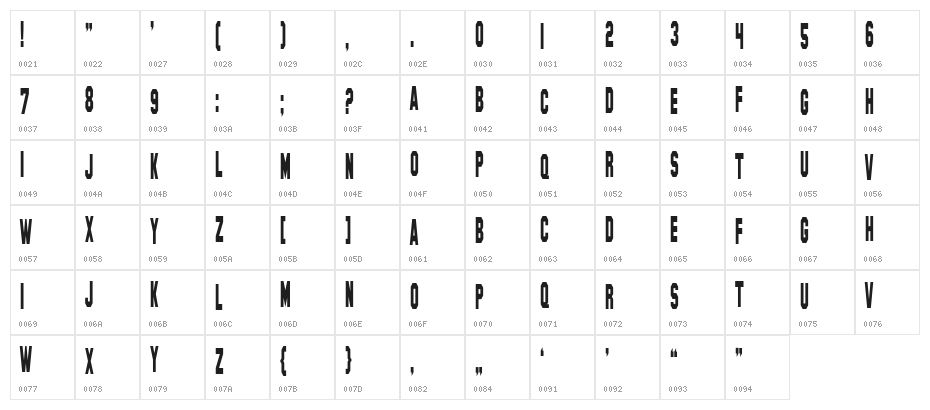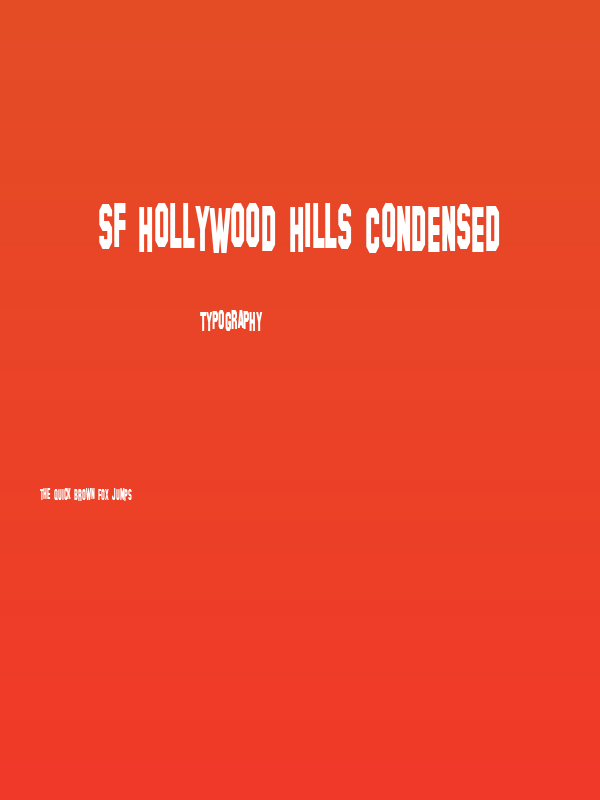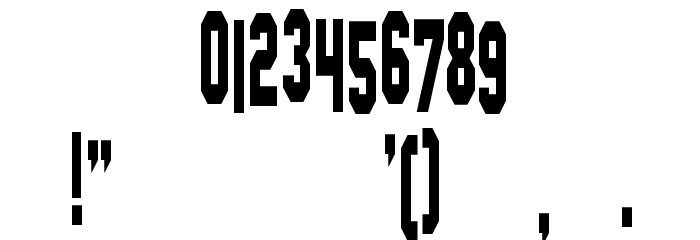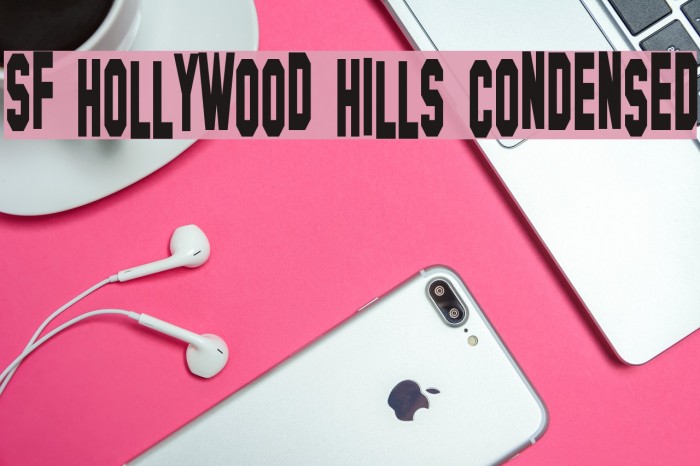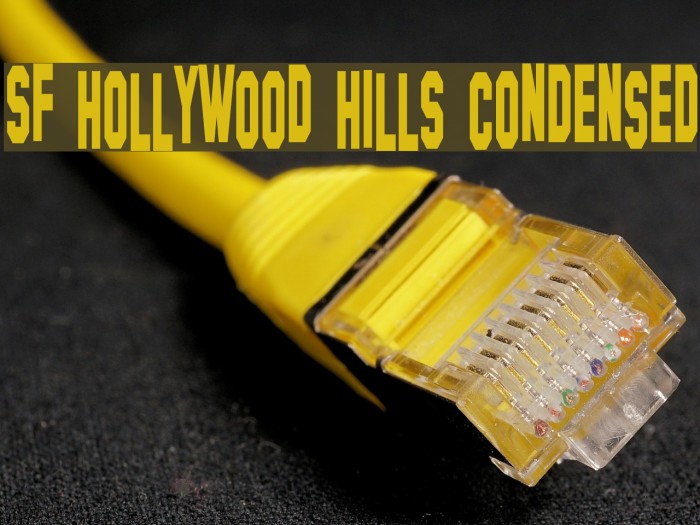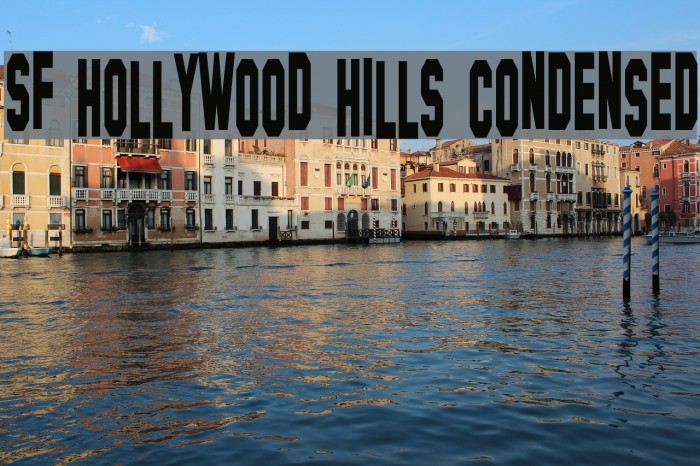
SF Hollywood Hills Condensed Font
SF Hollywood Hills Condensed Description
This font features a bold and condensed style with a strong geometric structure. The uppercase letters are tall and narrow, creating a striking and impactful appearance. The lowercase letters maintain the same condensed form, ensuring consistency throughout the typeface. The numbers are equally bold, matching the overall aesthetic of the alphabet. Special characters are designed to complement the letters and numbers, maintaining the font's cohesive look. The font's design is reminiscent of vintage signage, making it ideal for projects that require a bold and eye-catching display.
| Width | Condensed |
| Overall Style | Vintage |
| Proposed Projects | Ideal for posters, headlines, branding, and any project requiring a strong visual impact. |